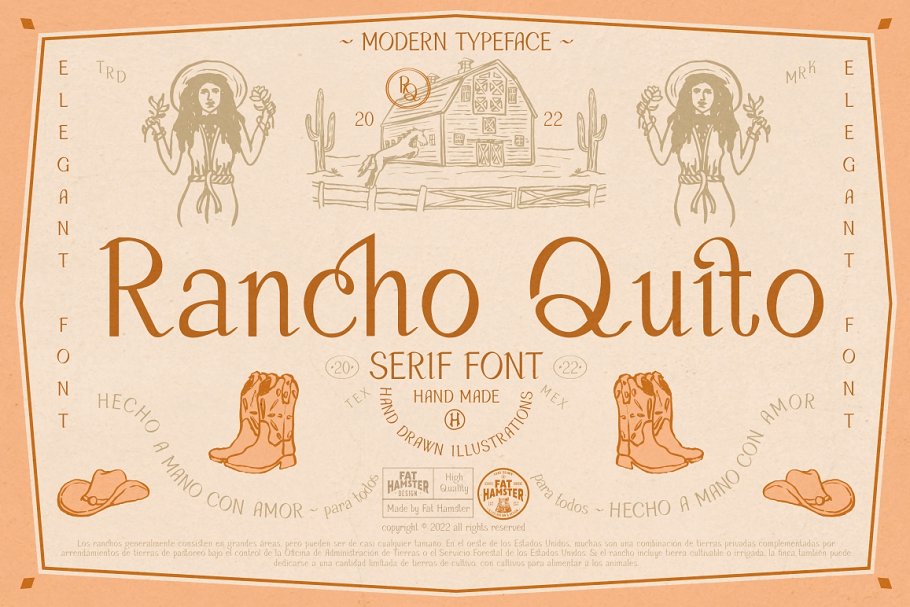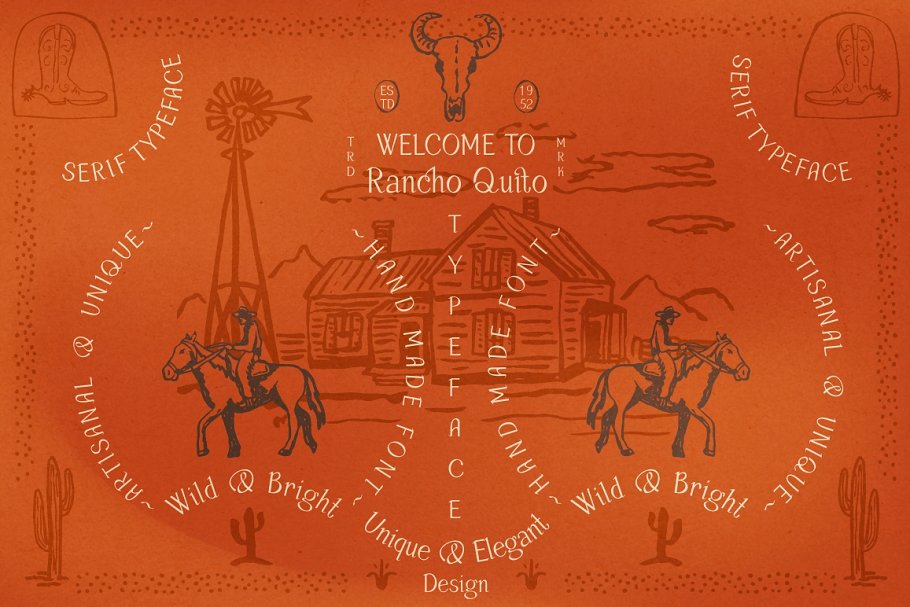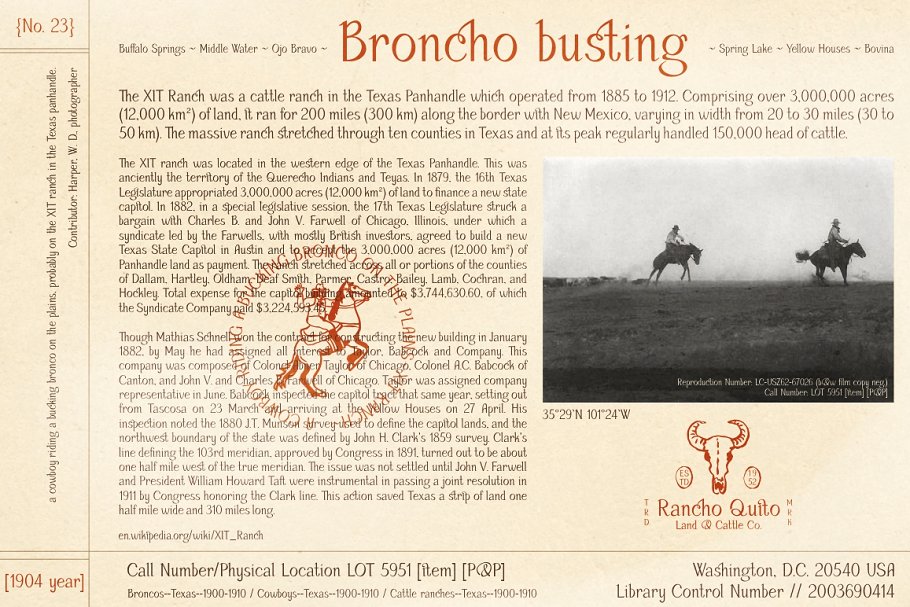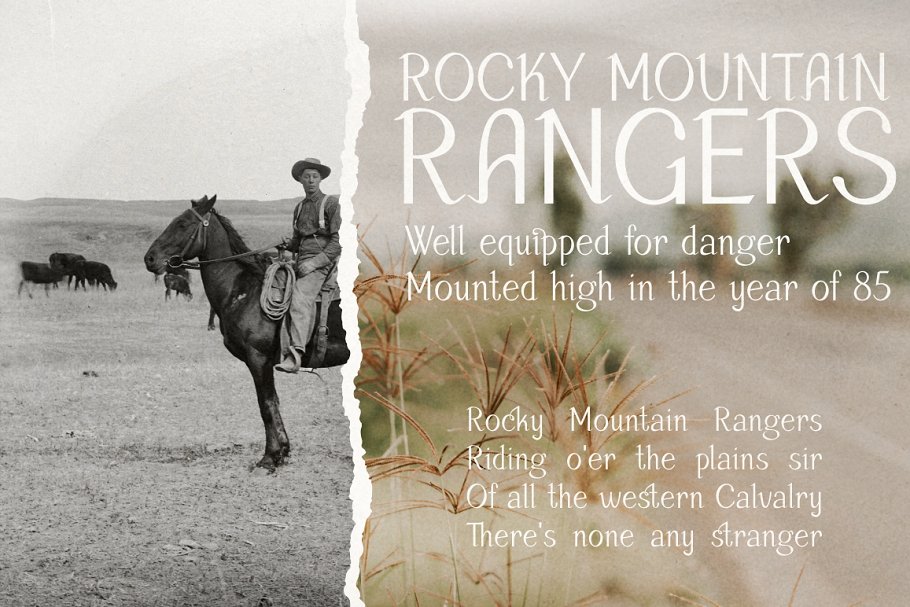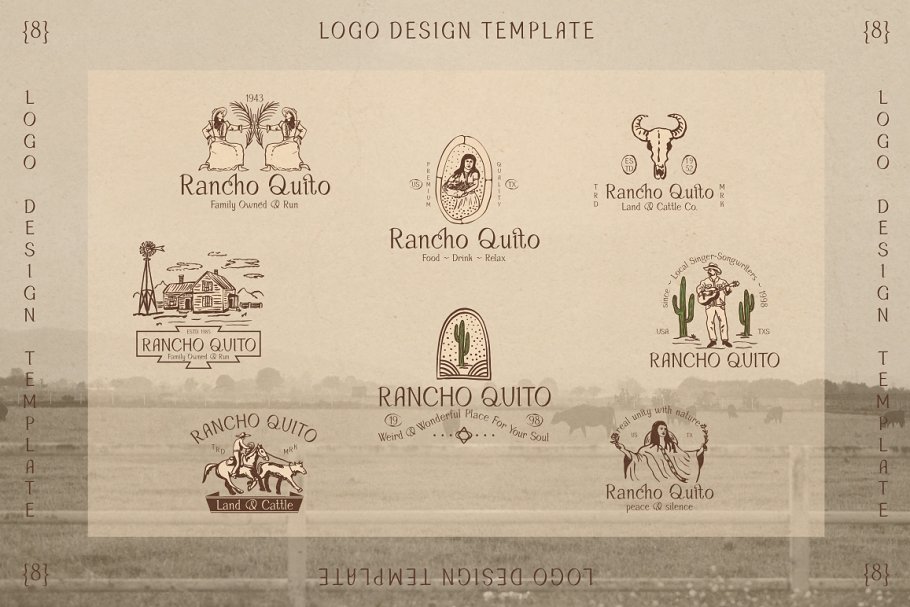
Rancho Quito elegant serif Font Family Free Download
About the Rancho Quito elegant serif Font
Rancho Quito – Modern and elegant font in warm southwestern styleSet includes:Rancho Quito font OTF / TTF / WOFF formatsBonus:8 logo design templates AI / CDRlittle marks design AI / CDRRancho Quito is a unique & stylish typeface inspired by southwestern & Mexican culture, Desert, country, old west vibes, Sleek and classy ligatures will add a special spirit to your fantastic projects